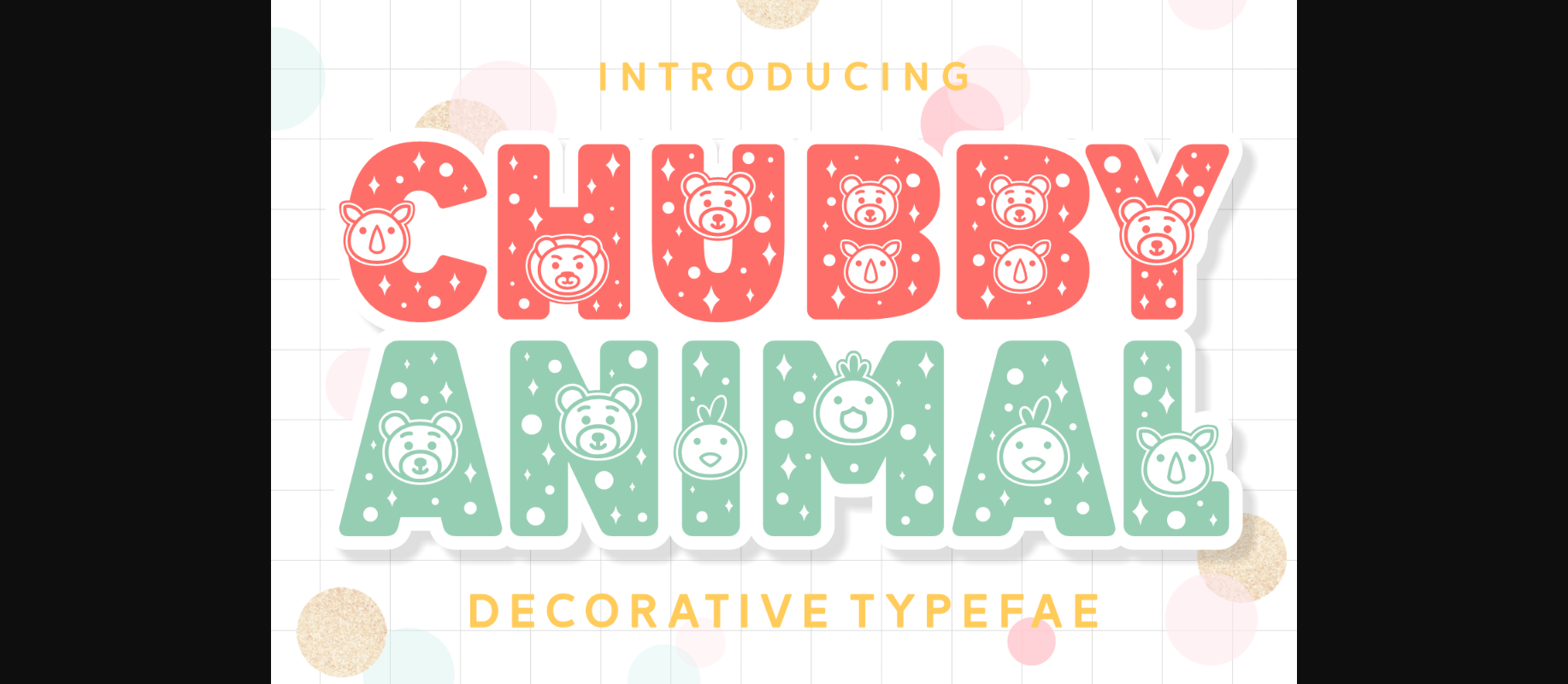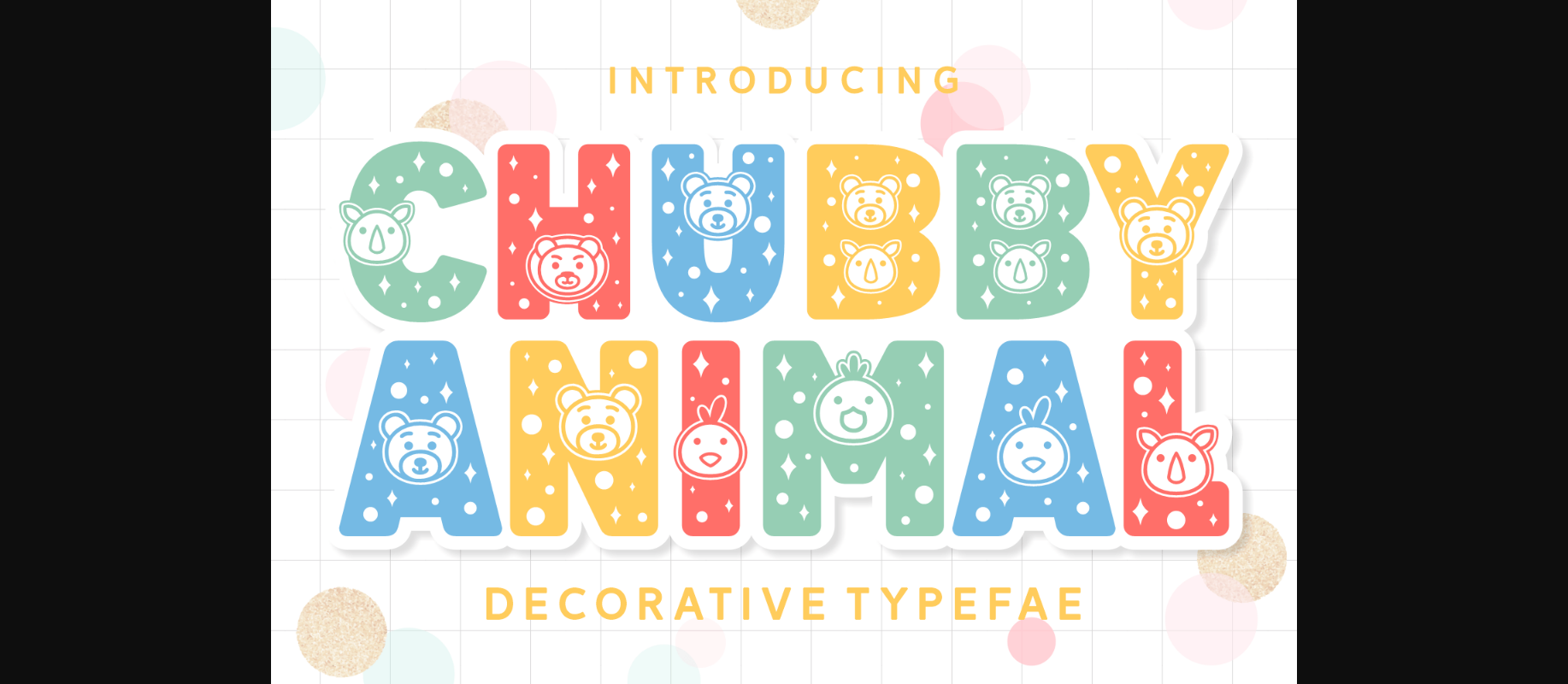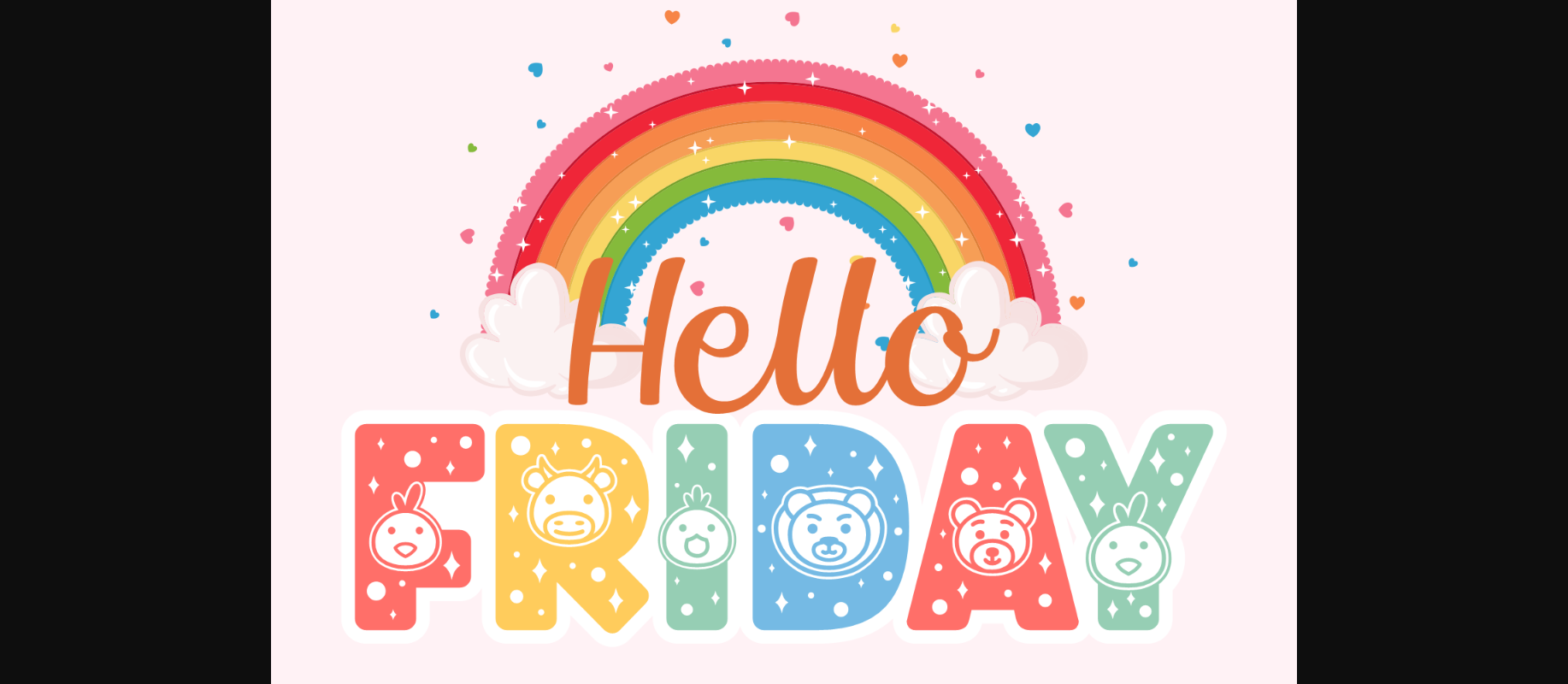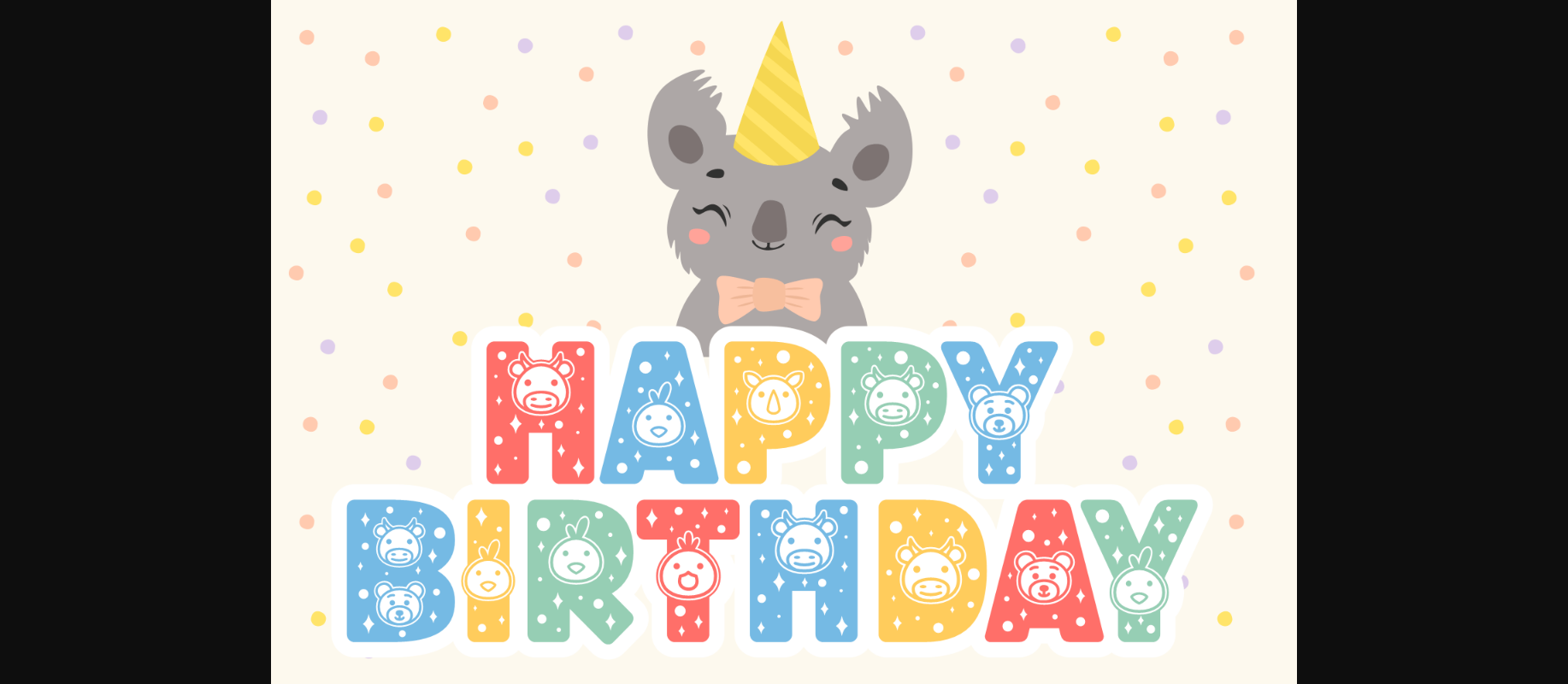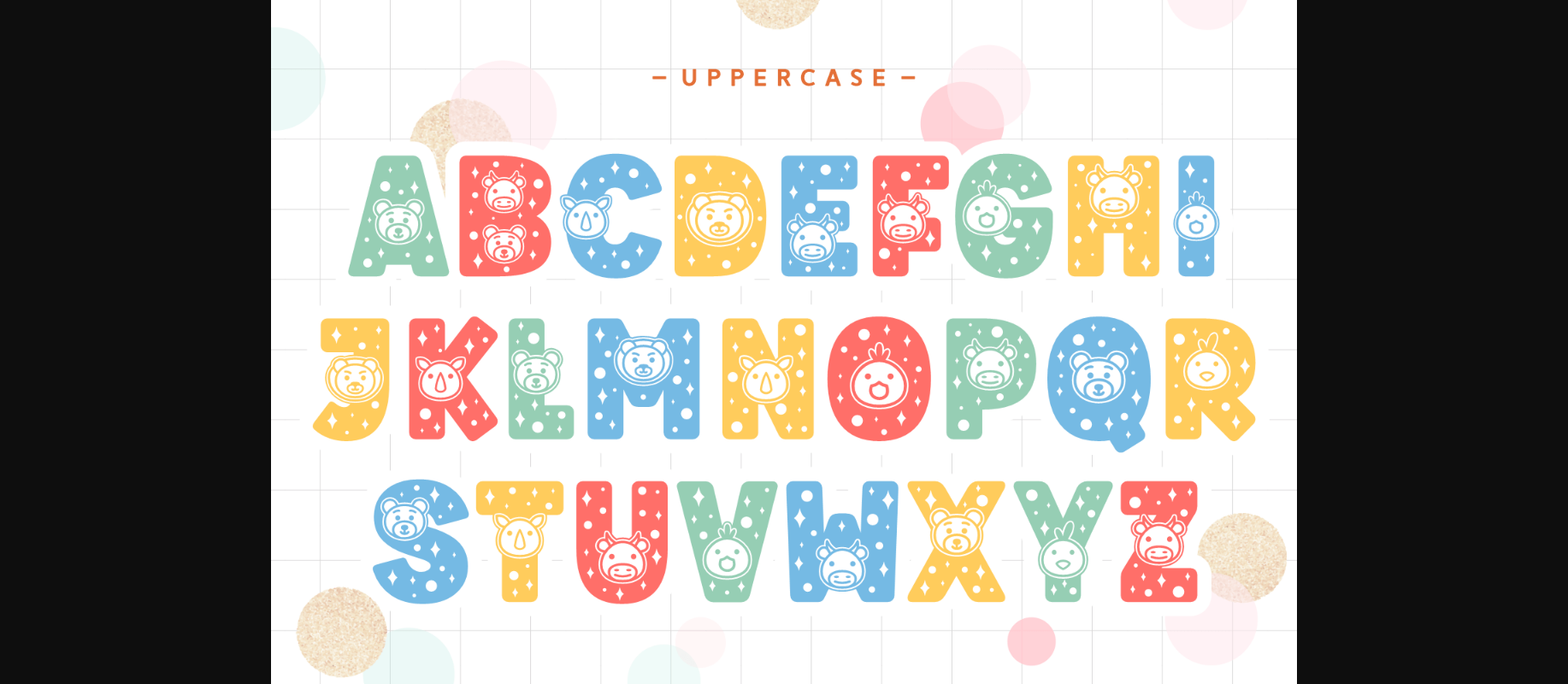
About Chubby Animal Font
Chubby Animal is an adorable decorative font featuring cute animal elements. Take your kid-friendly designs to the next level with this captivating font! Use it to create unique t-shirt designs, baby onesies, nursery decorations, digital designs, cards, and many more.